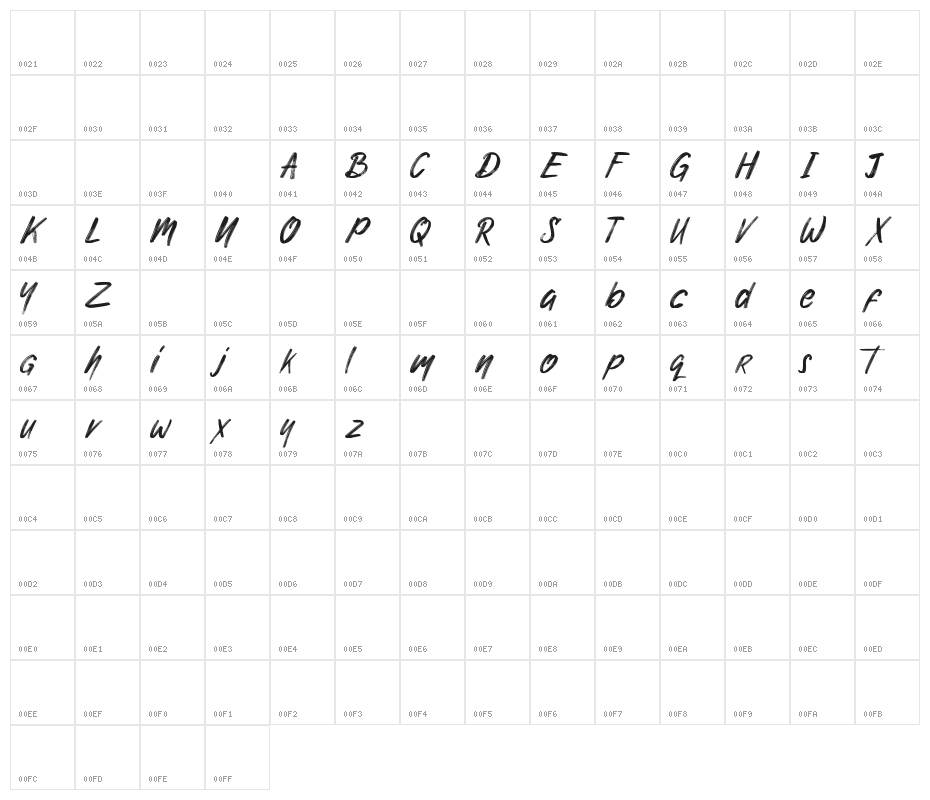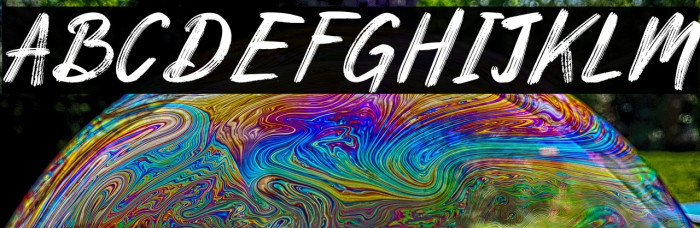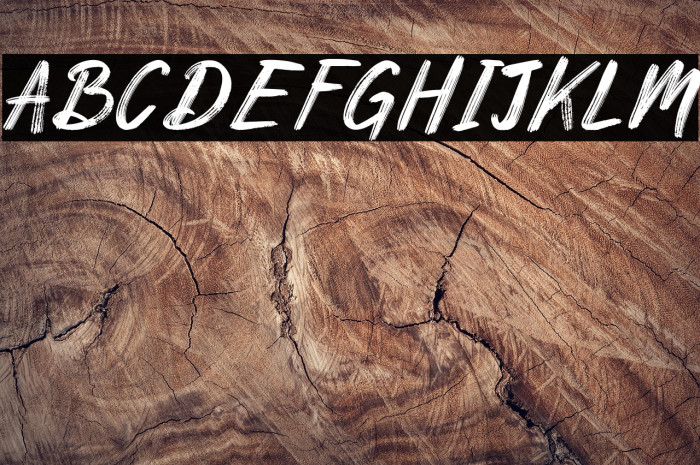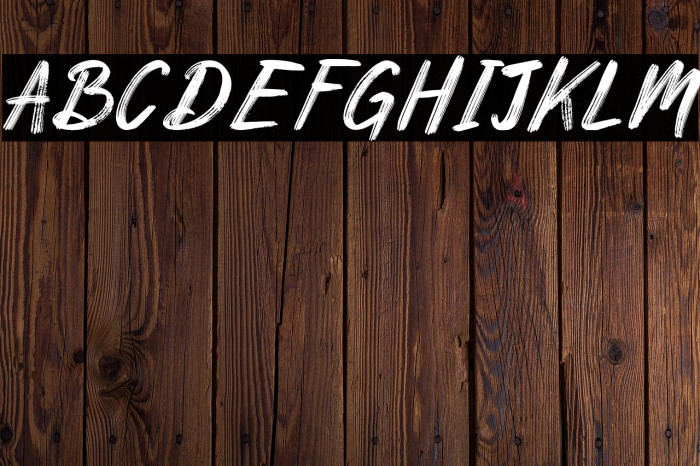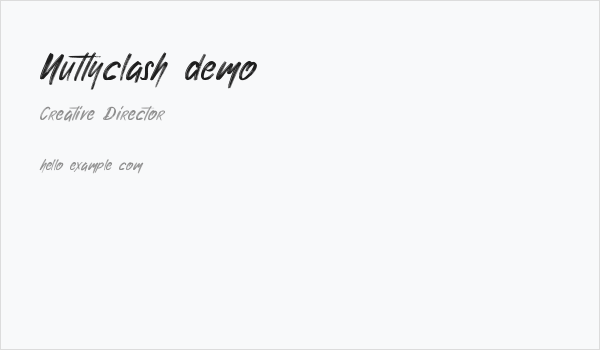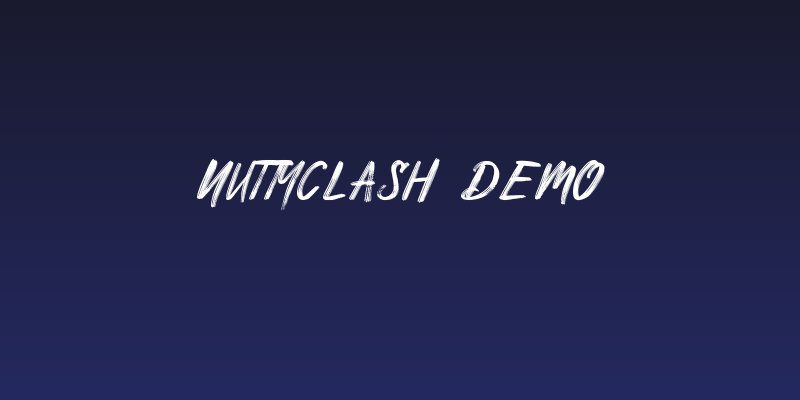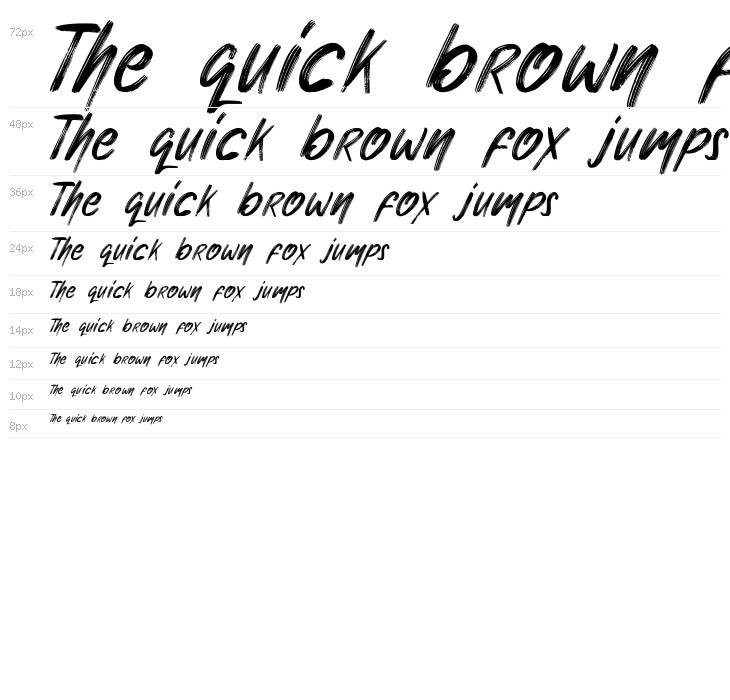
Nuttyclash demo Font
Nuttyclash demo Description
This font features a dynamic and energetic brush script style, characterized by its bold and expressive strokes. The letters exhibit a hand-drawn quality, with varying thickness that adds a sense of movement and spontaneity. Each character is distinct, with a slightly slanted orientation that enhances its casual and informal appearance. The uppercase and lowercase letters maintain a consistent style, while the numbers and special characters complement the overall aesthetic. This font is ideal for projects that require a lively and artistic touch.
Proposed ProjectsIdeal for branding, posters, social media graphics, and creative projects that require a lively and artistic touch.